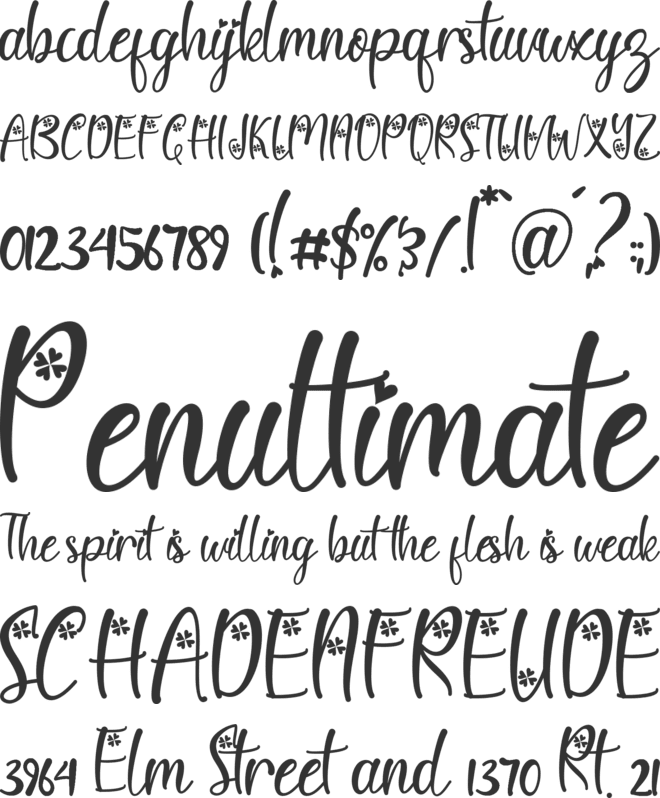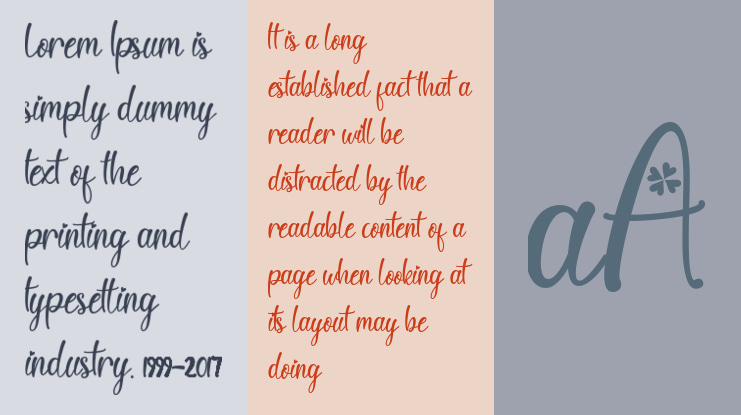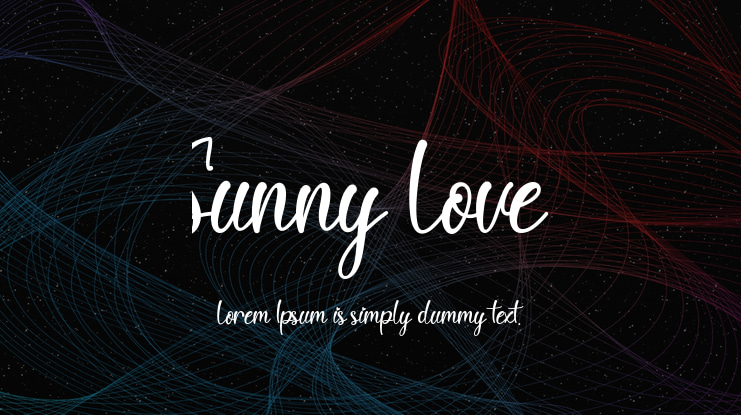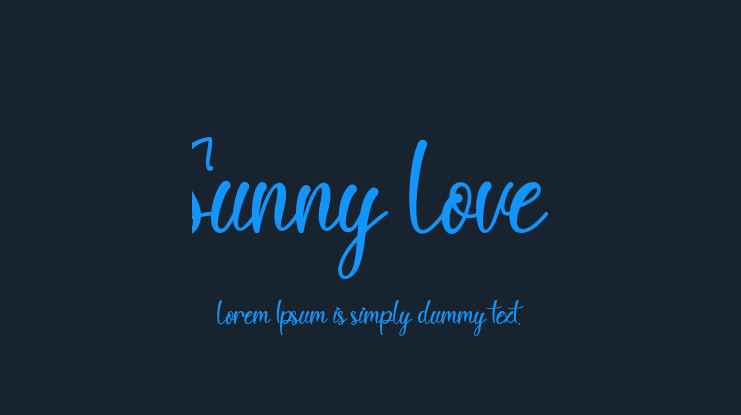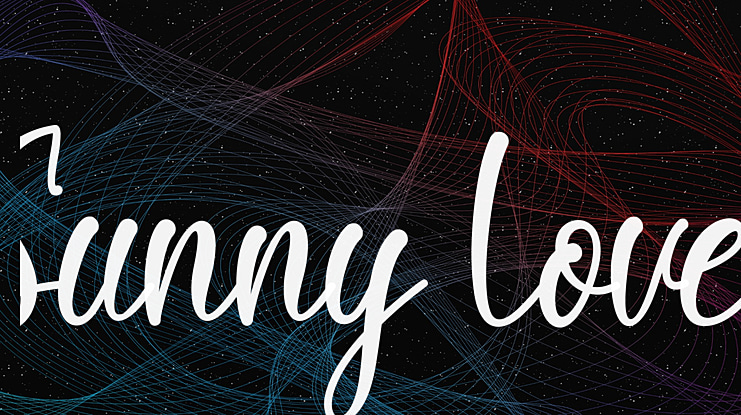
Sunny Love Font Family
Sunny Love is a beautiful handwritten font. This font is made complete with beautiful and unique letter decorations. The embellishments on the letters are also easy to use, and instructions are given as well. This font is perfect for your holidays, summer, spring, mother day, father day, logos, branding, banner, poster, print, invitation, gift, birthday, wedding, social media, quotes and more.